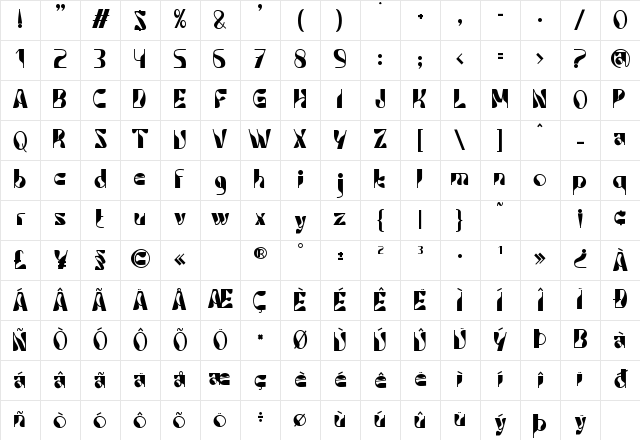
Floras Display One Regular
Foundry: Putracetol Studio, Karanganyar.
Designer: Putra Novembria Candra Kusuma
Design Context for Floras Display One
Floras Display One is built around its visual character rather than neutral utility - its distinctive forms are designed to make an impression at display sizes.
Font Pairing: Pair with a clean neutral sans-serif for body copy to let Floras Display One's character lead without overwhelming the composition.
Pro Tip: Use Floras Display One exclusively at display sizes - it was designed to be seen, not read at length. Let a neutral companion handle body copy.